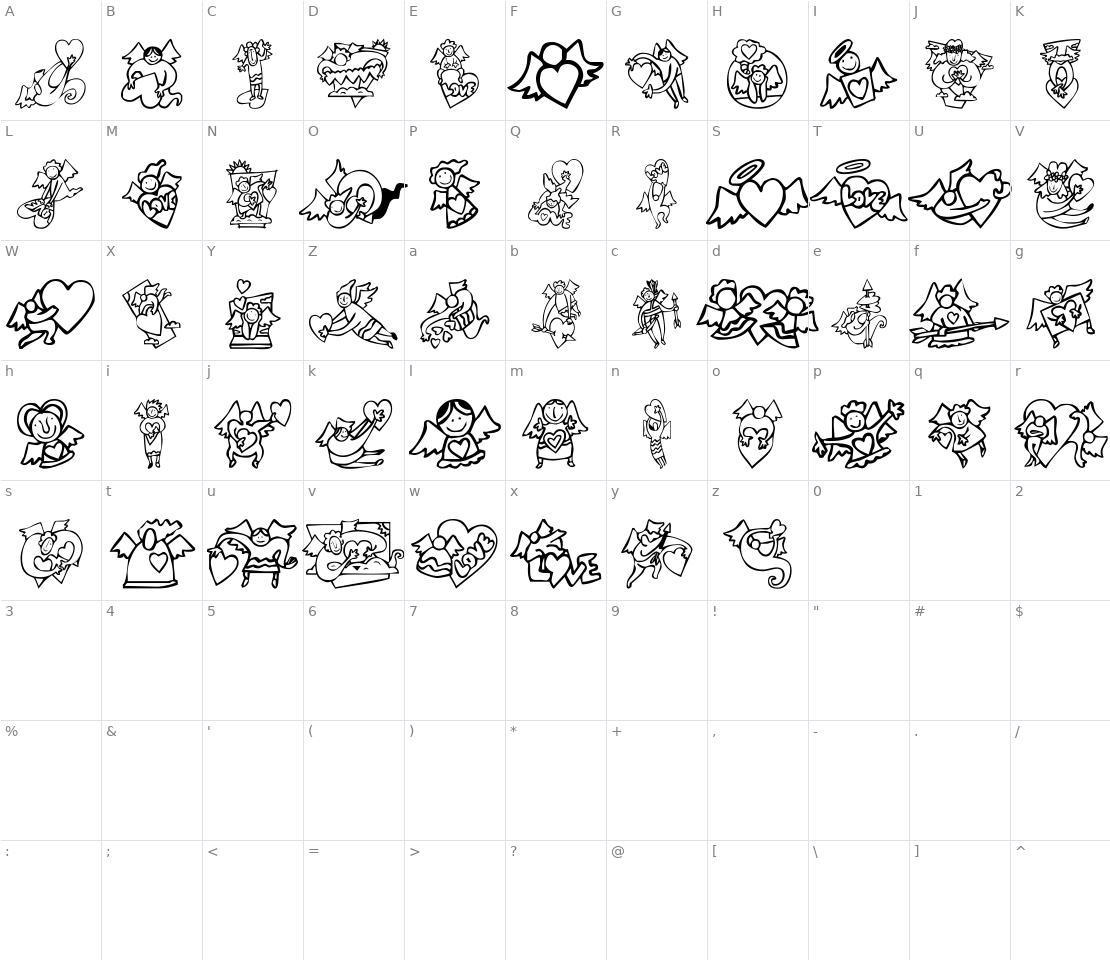
KR Love Angels
by Kat's Fun Fonts
KR Love Angels is a dingbat font from Kat's Fun Fonts filled with cupids, hearts, and romantic symbols. Each keystroke produces a decorative illustration rather than a letter, giving you a set of Valentine's Day-ready ornaments for cards, invitations, borders, and seasonal design work. The style is light and charming, with a hand-drawn quality that keeps things feeling personal rather than clip-art generic.